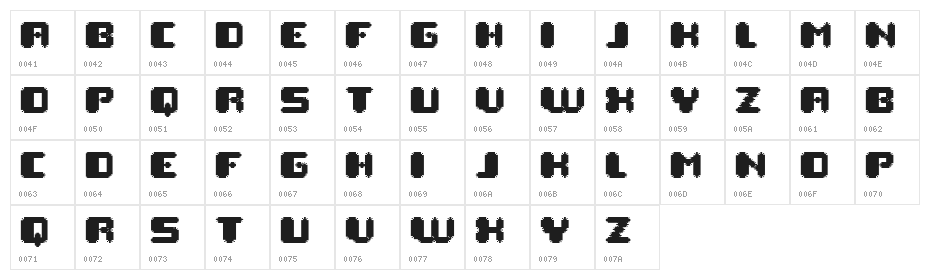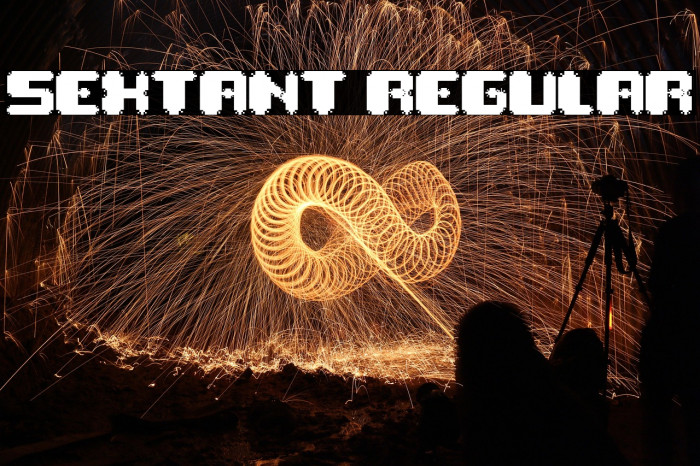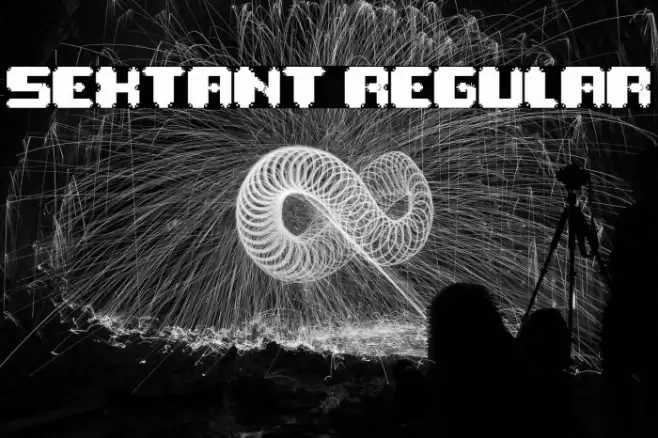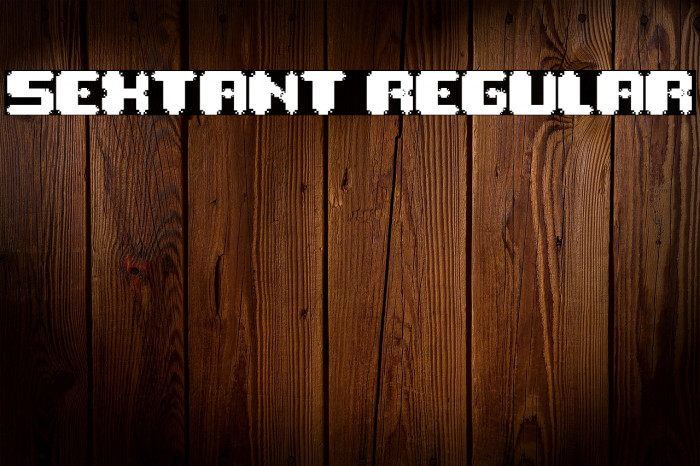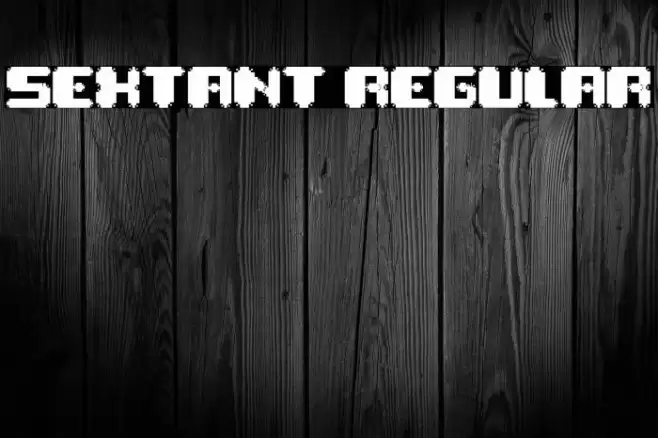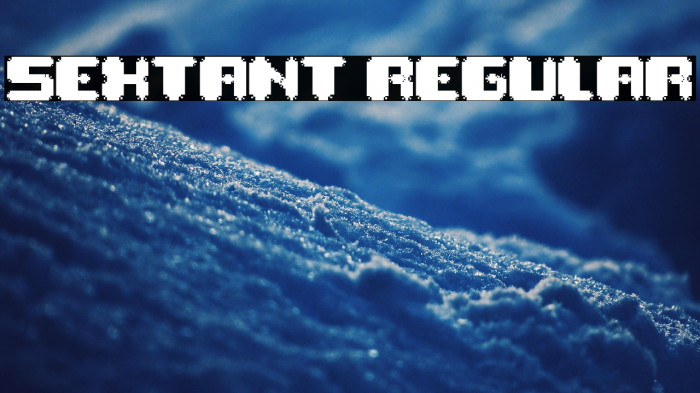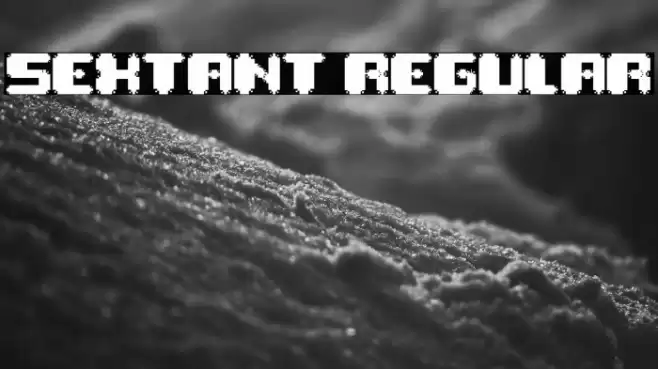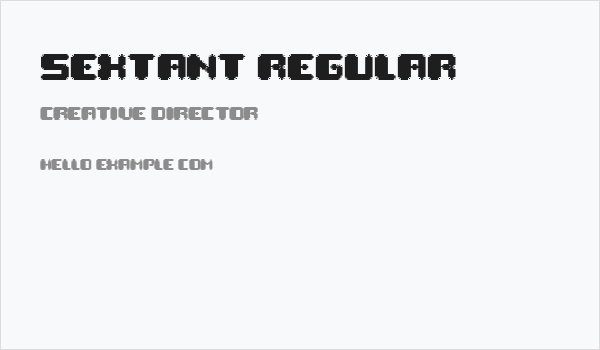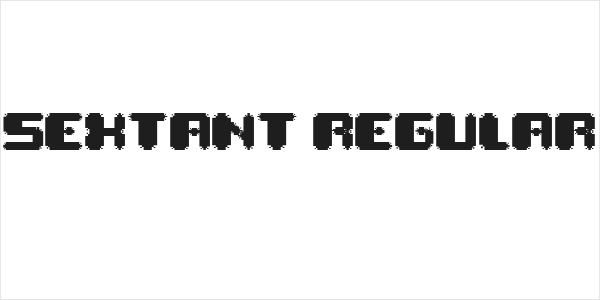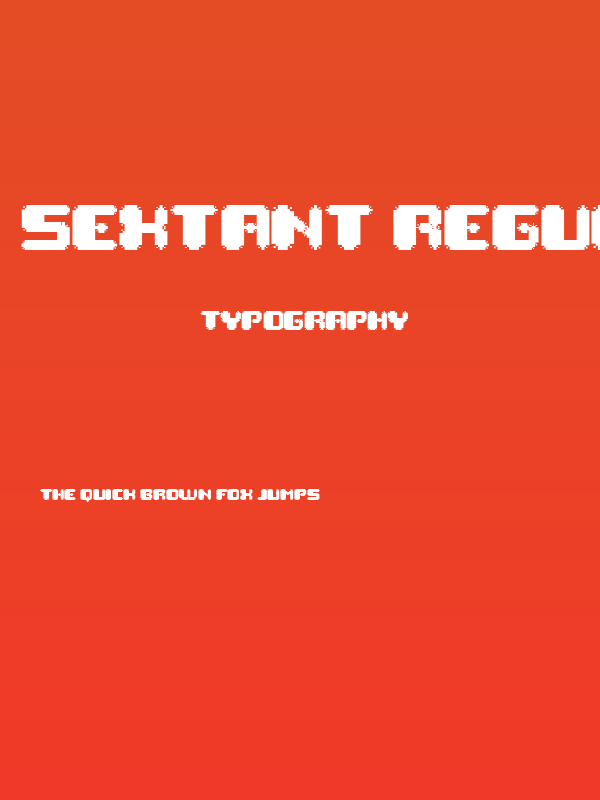
Sextant Regular Font
Sextant Regular Description
This font features a bold, geometric design with a pixelated, digital aesthetic. The characters are constructed with a blocky, modular style that gives it a futuristic and tech-inspired look. The uppercase and lowercase letters maintain a consistent height, contributing to a uniform appearance. The numbers and special characters follow the same design principles, ensuring a cohesive visual identity. The font's distinct style makes it ideal for projects that require a modern and edgy feel, such as digital art, video game interfaces, or tech-related branding.
| Proposed Projects | Ideal for digital art, video game interfaces, tech branding, and futuristic designs. |